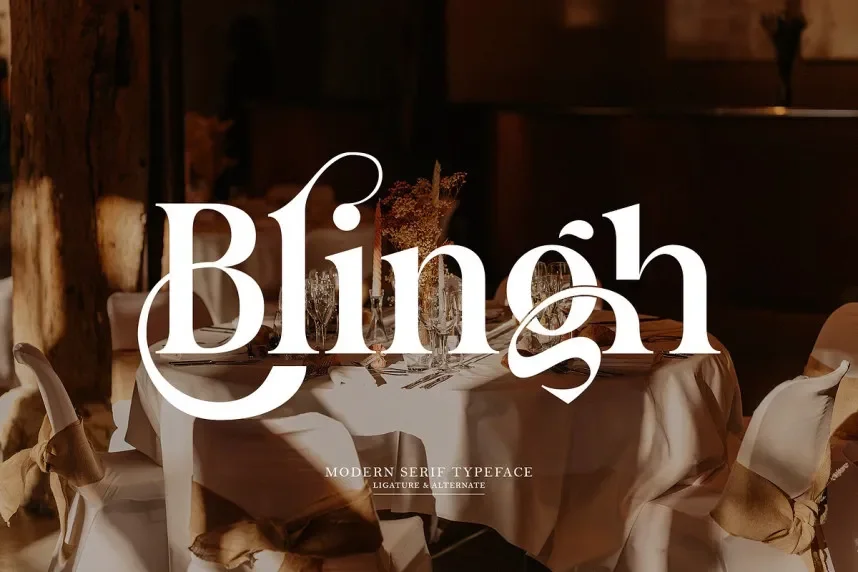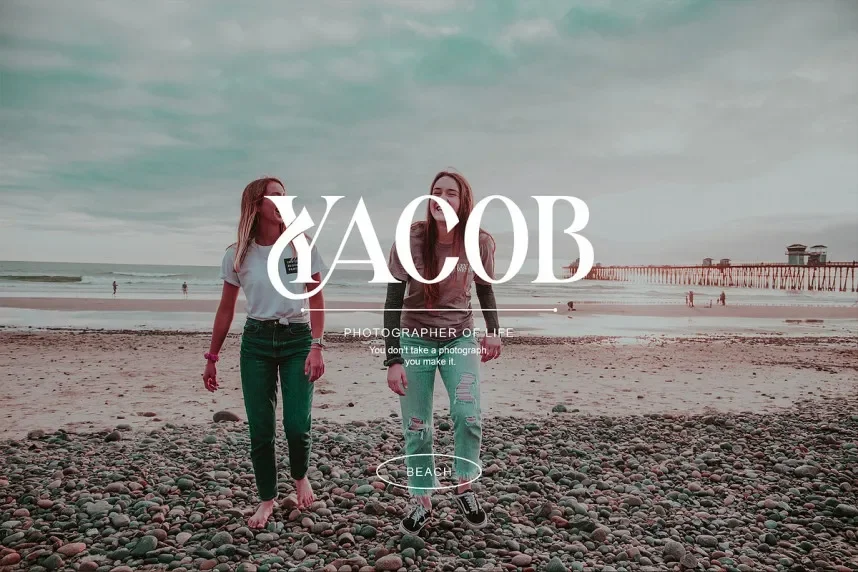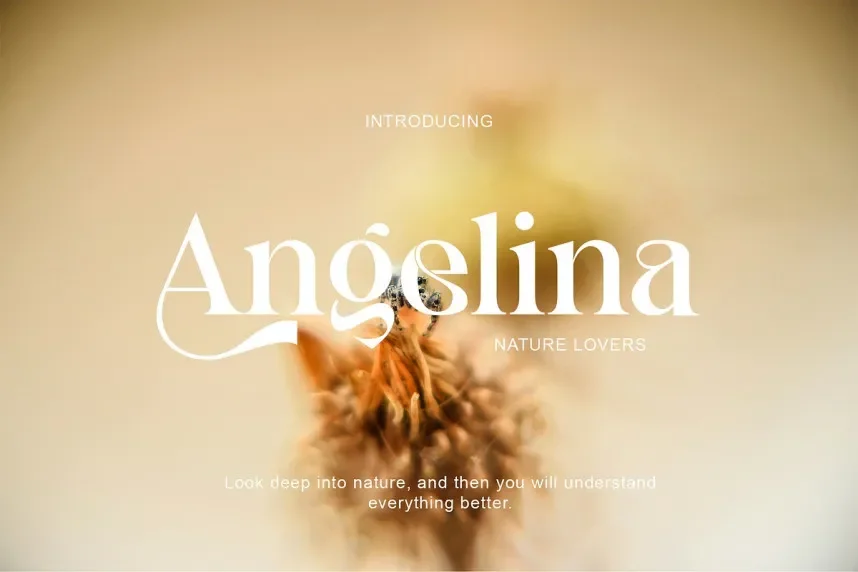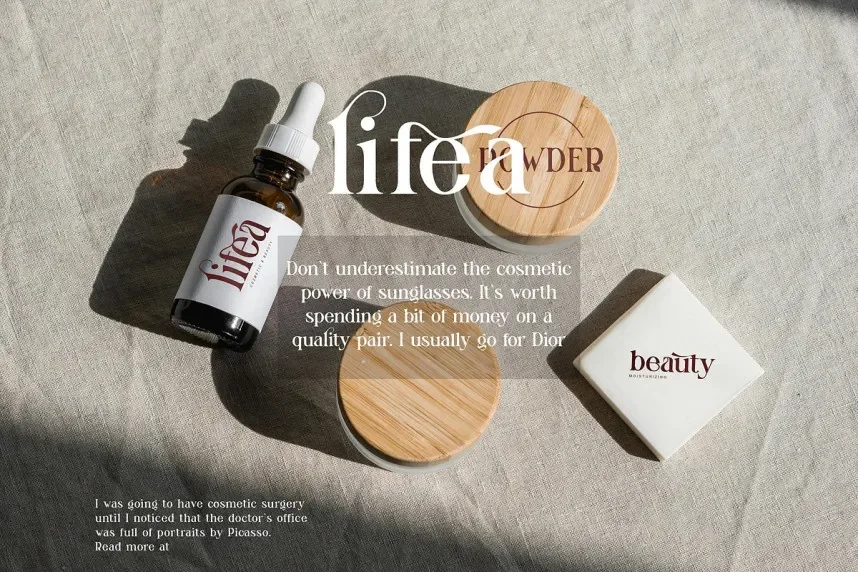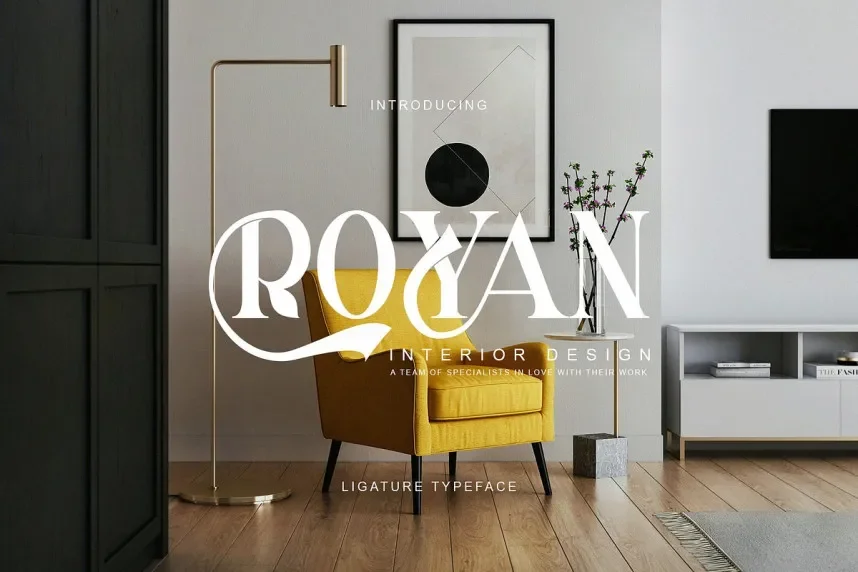
Blingh Font is a bold, display typeface designed to make a statement. Its thick, heavy strokes and unique letterforms make it perfect for high-impact designs, including posters, branding, and event promotions that require attention.